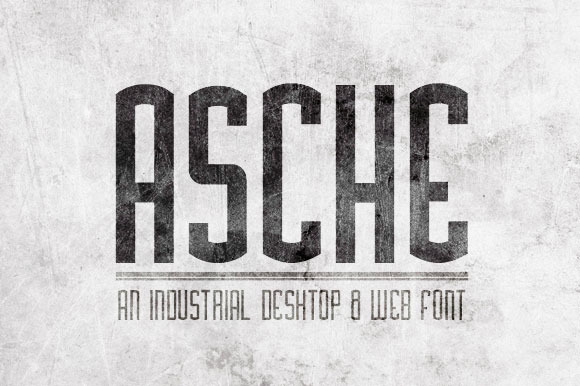
Asche Font
This unique desktop and web font is inspired by vintage industrial logo-types, and makes for a powerful headline font. It includes all common glyphs including lower and uppercase characters, numbers and symbols.
This font includes hundreds of characters including uppercase, lower case, numbers, symbols, and a few (though not all) international accents.
This font is supplied in 3 different weights: -- Bold -- Regular -- Light